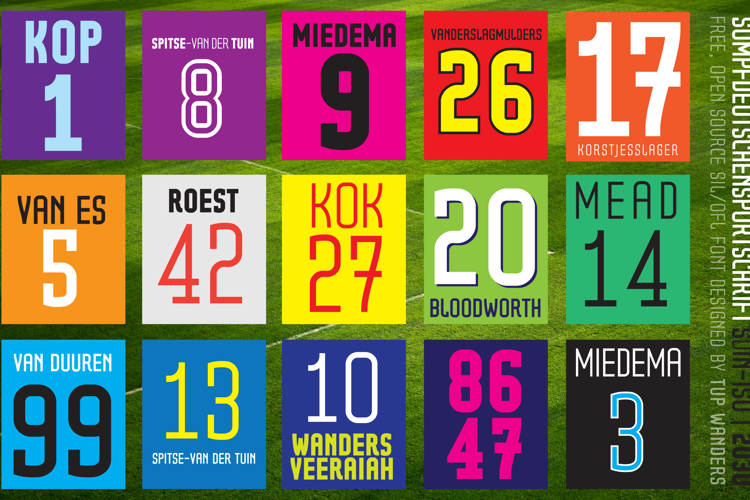
Sumpfdeutschensportschrift SdIN Font
In 2022, The Sports division of what was then the Sumpfdeutsche Institut fuer Normung (SdIN), invited a large group of international sports coaches, athletes, fashion designers, referees and typographers to a seminar in Neuschanz (Gr), to see if a common ground (indeed; a norm if you will) could be found considering the typography on sports outfits.
For many years, referees had been complaining about the poor legibility of the typefaces used on the shirts of the players in a wide variety of sports. A task force of key players in the field was selected and after three years of analyzing all the different angles the professionals brought to the table, and subsequently realizing there were very few typographers or type designers willing to release a design without being able to make money off it, the Institute asked local type designer Tup Wanders, (known for his slap-dash typedesign, punkrock music and for making all his fonts free and open source) to come up with a design. After doing extensive research into the use of sports typography, watching hundreds of hours of a wide variety of sports footage, even having a go at some of the sports himself, a sore and bruised Wanders surprised the SdIN by finishing this free, open source global definition of the Sportveranstaltungenindustrie-norm in under 3 days.
All the special characters and diacritics languages that use Latin script have been included. And better still, it's completely free, rights-free as well, for all athletes and sports fans and organizations to use. Until 2030, when there will be a next seminar in Neuschanz to see if we can improve.
Im Jahr 2022 lud die Sportabteilung des damaligen Süddeutschen Instituts für Normung (SdIN) eine große Gruppe internationaler Sporttrainer, Athleten, Modedesigner, Schiedsrichter und Typografen zu einem Seminar nach Neuschanz (Gr) ein, um zu prüfen, ob hinsichtlich der Typografie auf Sportbekleidung eine gemeinsame Basis (ja, eine Norm, wenn man so will) gefunden werden könnte.
Seit vielen Jahren hatten sich Schiedsrichter über die schlechte Lesbarkeit der Schriftarten beschwert, die auf den Trikots der Spieler in einer Vielzahl von Sportarten verwendet wurden. Eine Arbeitsgruppe aus wichtigen Akteuren des Fachgebiets wurde gebildet, und nachdem drei Jahre lang alle verschiedenen Perspectieve analysiert worden waren, die die Fachleute einbrachten, und man anschließend feststellte, dass es nur sehr wenige Typografen oder Schriftdesigner gab, die bereit waren, ein Design zu veröffentlichen, ohne damit Geld verdienen zu können, bat das Institut den lokalen Schriftdesigner Tup Wanders (bekannt für sein schlampiges Schriftdesign, seine Punkrock-Musik und dafür, dass er alle seine Schriften kostenlos und als Open Source zur Verfügung stellt) darum, ein Design zu entwerfen. Nach umfangreichen Recherchen zur Verwendung von Sporttypografie, dem Anschauen von Hunderten von Stunden unterschiedlichster Sportaufnahmen und sogar eigenen Versuchen in einigen Sportarten überraschte ein verqueter und zerschlagener Wanders das SdIN, indem er diese kostenlose, Open-Source-Definition der Sportveranstaltungenindustrie-Norm in weniger als drei Tagen fertigstellte.
Alle Sonderzeichen und diakritischen Zeichen der Sprachen, die das lateinische Alphabet verwenden, wurden berücksichtigt. Und das Beste daran: Die Nutzung ist für alle Sportler, Sportfans und Organisationen völlig kostenlos und lizenzfrei. Bis 2030, wenn in Neuschanz ein weiteres Seminar stattfinden wird, um zu prüfen ob wir uns noch verbessern können.